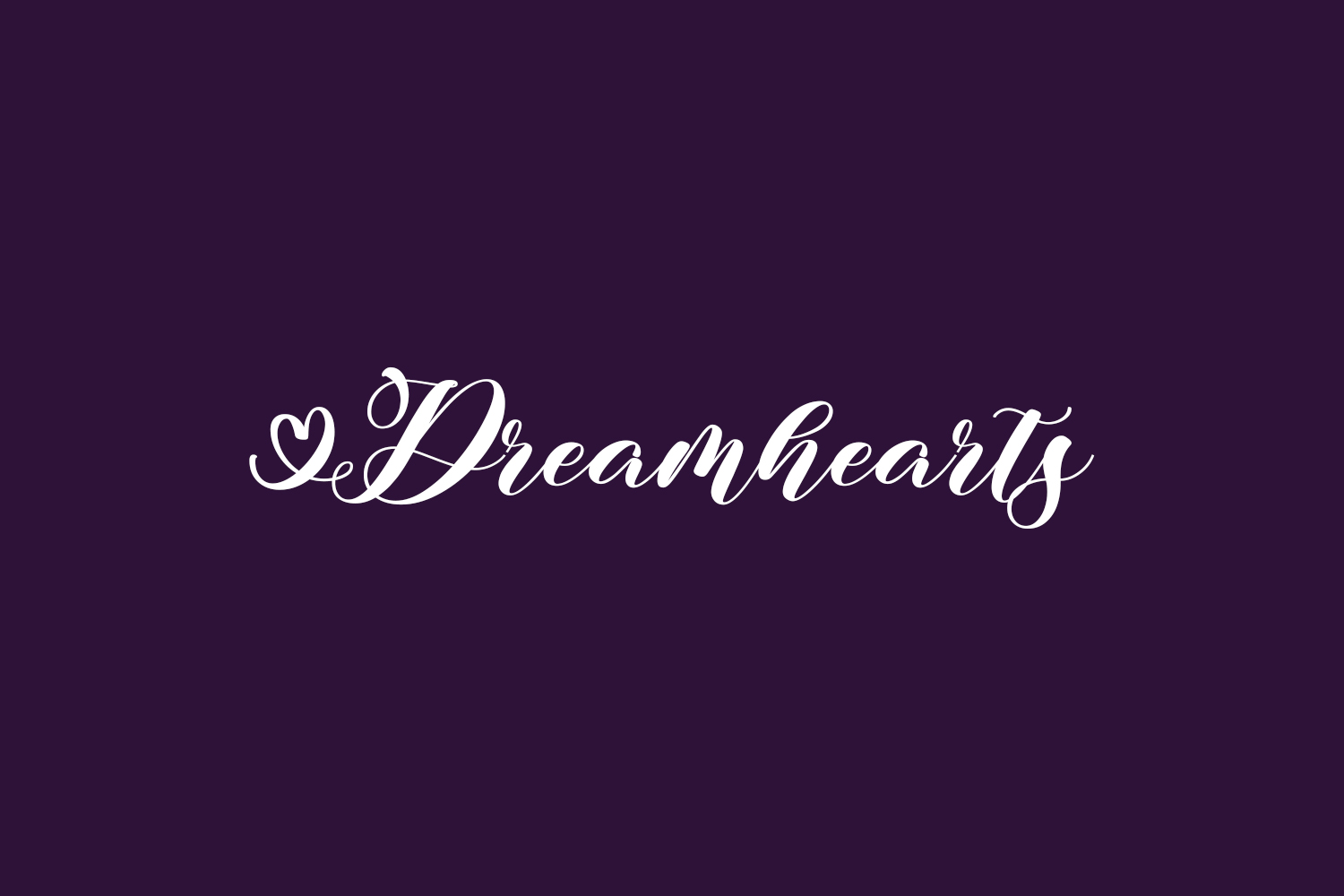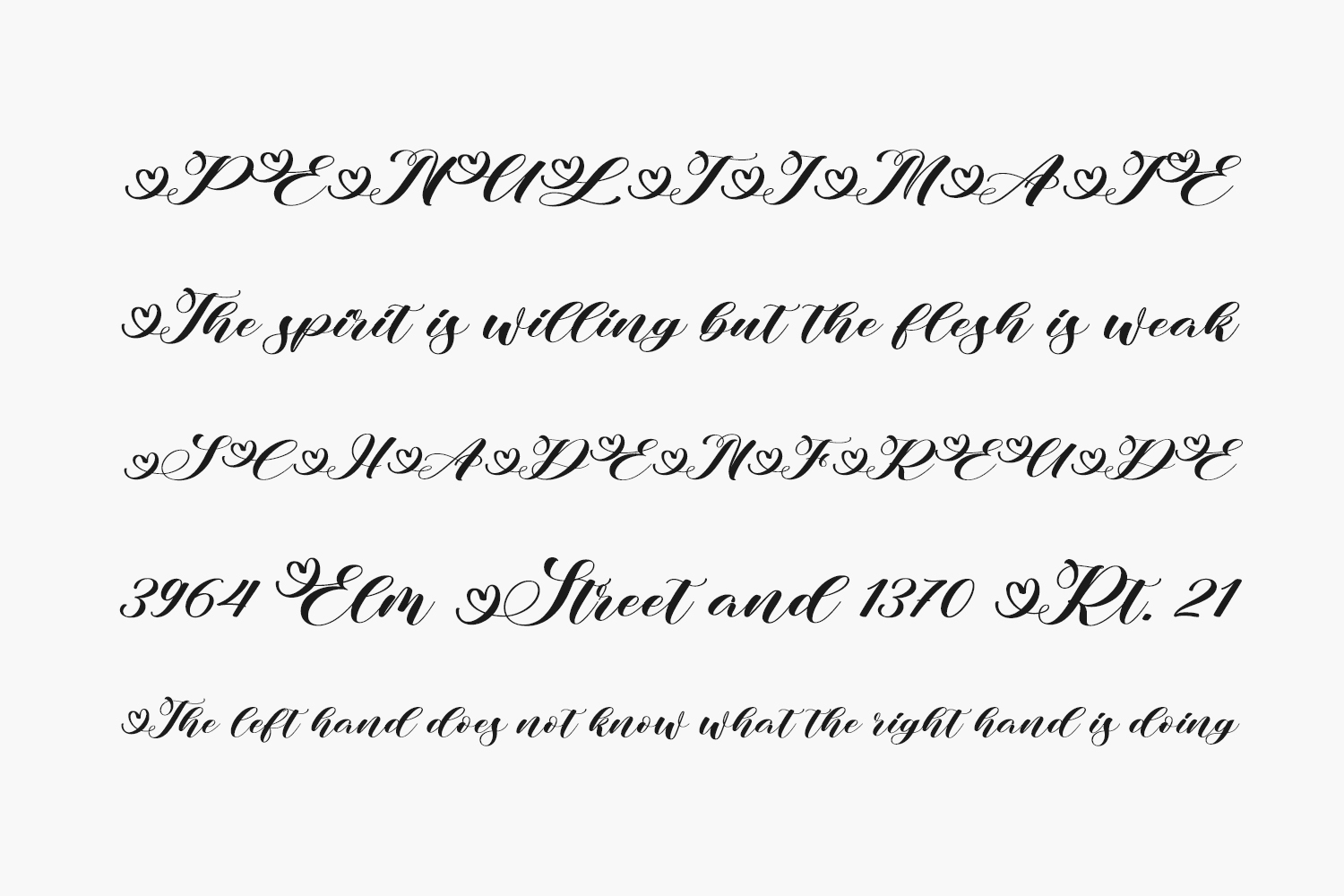
Elevate your designs with Dreamhearts Free Font, a charming handwritten font exuding sweetness and sophistication. Incorporate it into your logos, labels, branding, invitations, websites, quotes, and more to enhance their appeal and make them truly stand out. Download the font for free if you need it for personal use or purchase the full version for commercial use.
Designed by Makashi